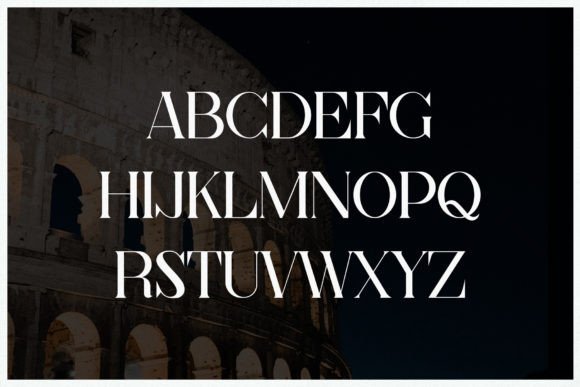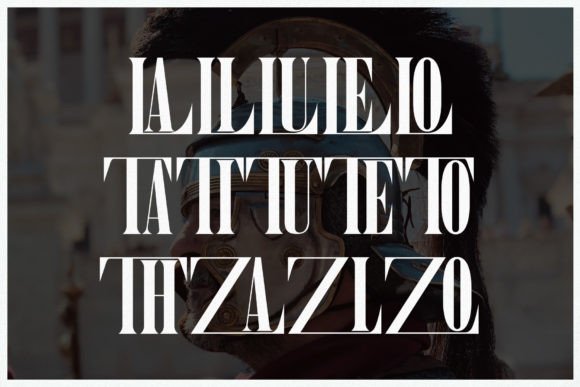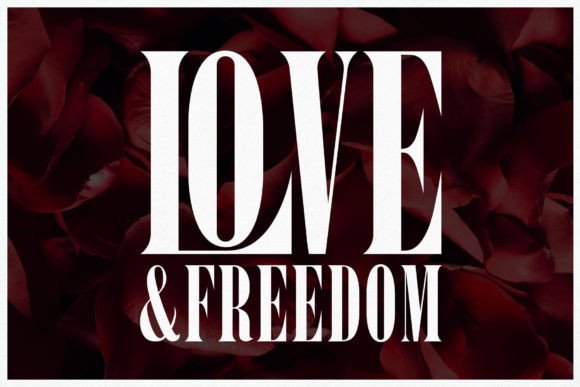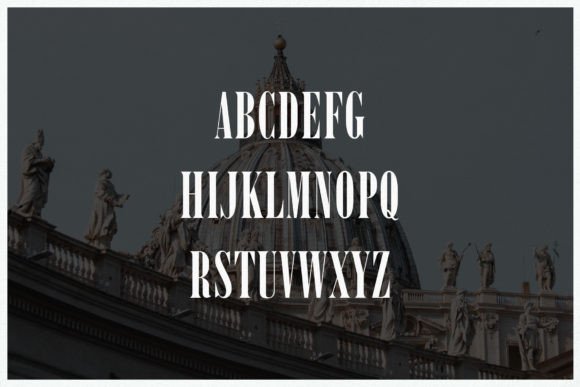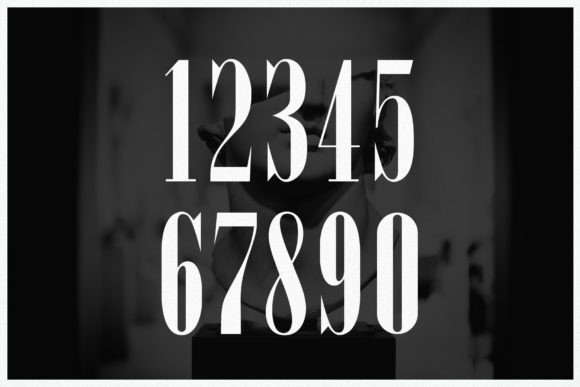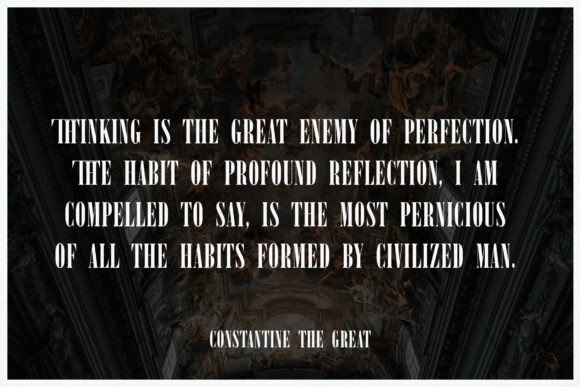
The Elegant Constantine Font: A Designer’s Delight
I’ll never forget the time I was working on a wedding invitation project, and my client asked for a font that exuded elegance and sophistication. I scoured the internet, tried countless fonts, but nothing seemed quite right. That was until I stumbled upon the Constantine font. ✨
As soon as I saw it, I knew I had found the one. The elegant lines, the classic serif details, and the minimalist vibe all screamed “wedding invitation perfection.” But, as I dug deeper, I realized that Constantine is so much more than just a pretty face. It’s a versatile font that can be used for a wide range of design projects, from branding to social media.
A Closer Look: What I Love About Constantine
So, what makes Constantine so special? Here are a few things that I love about this font:
- ✨ Elegant and classy design that’s perfect for high-end projects
- ✅ Comes in two flavors: thin/regular, giving you flexibility and options
- 🔥 14 beautiful ligatures to add an extra touch of sophistication to your designs
- 📚 Perfect for a wide range of projects, including branding, weddings, magazines, fashion, posters, quotes, books, and social media
Honest Review: A Few Quirks to Consider
While Constantine is an amazing font, it’s not without its quirks. Here are a few things to keep in mind:
- 🤔 Limited character set: While Constantine has a wide range of characters, it’s not a full-featured font with every possible character. This might be a limitation for some projects.
- ⚠️ Not ideal for body text: Due to its elegant and slender design, Constantine is best suited for headlines and titles rather than body text.
The Story Behind Constantine
Constantine was inspired by the Roman emperor Constantine the Great, who ruled from 306 to 337 AD. The font’s designer wanted to create a font that captured the elegance and sophistication of ancient Rome, while also being modern and versatile.
- Q: What is Constantine font?
- A: Constantine is an elegant and classy display serif font inspired by Constantine the Great, a Roman emperor from 306 to 337 AD.
- Q: Is Constantine a script font?
- A: No, Constantine is a serif font with a classic and elegant design.